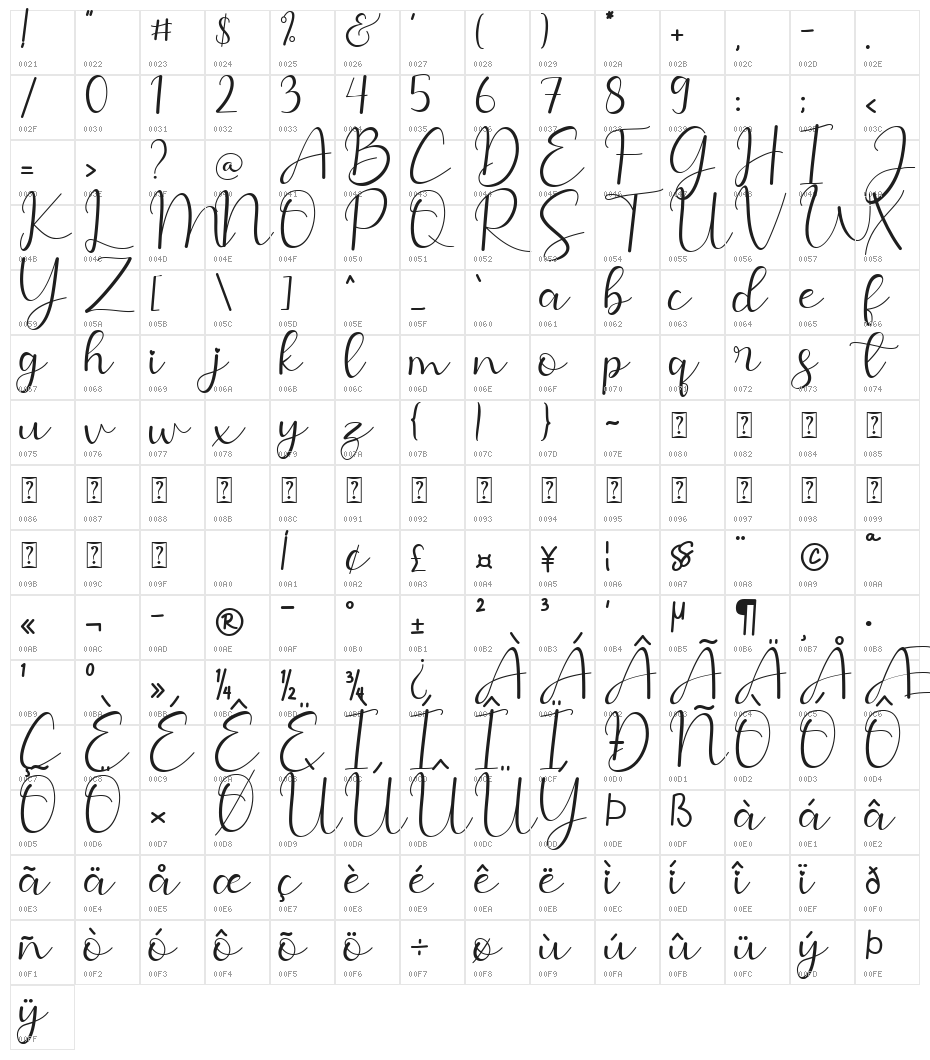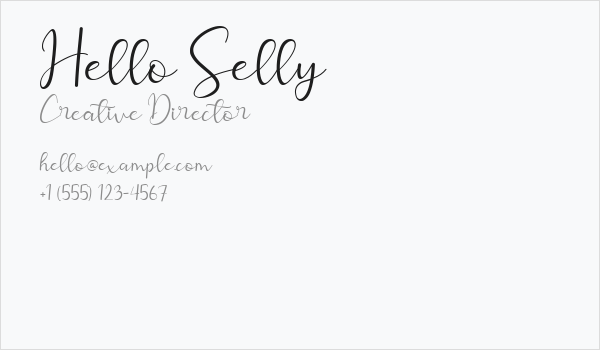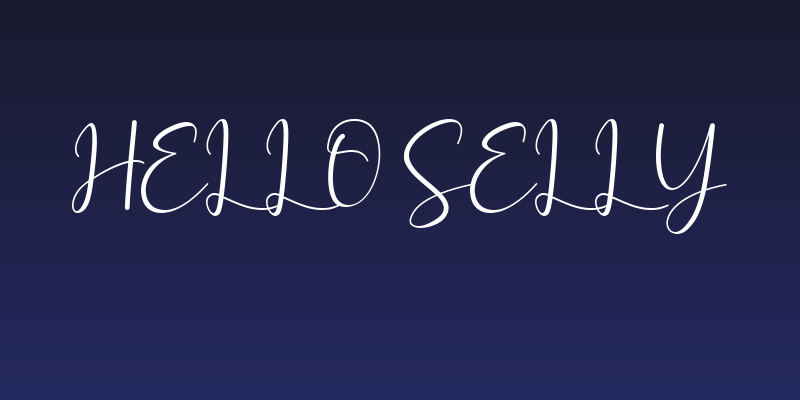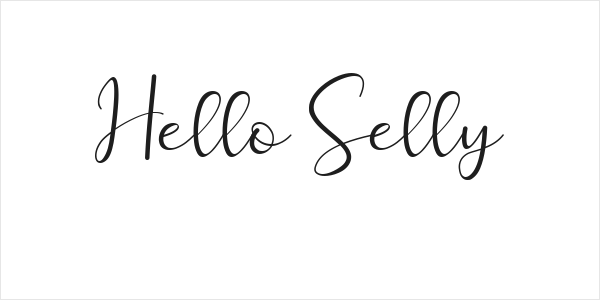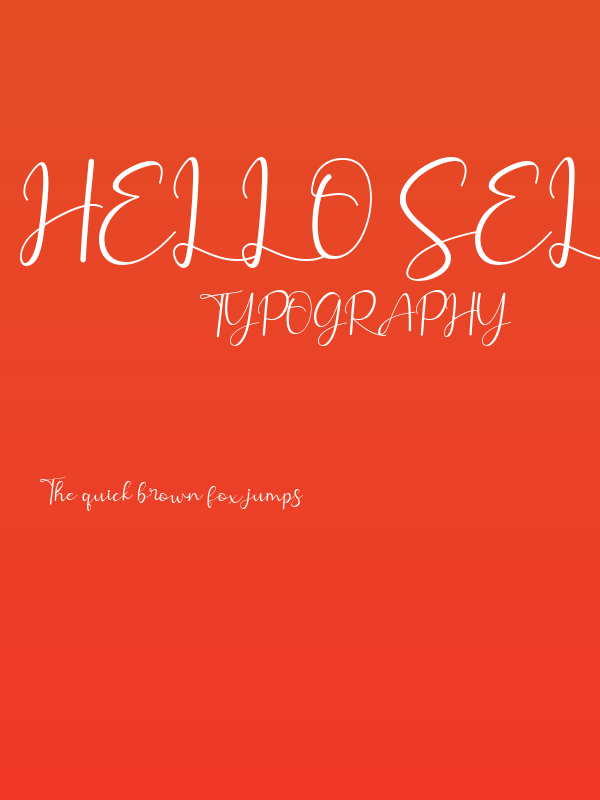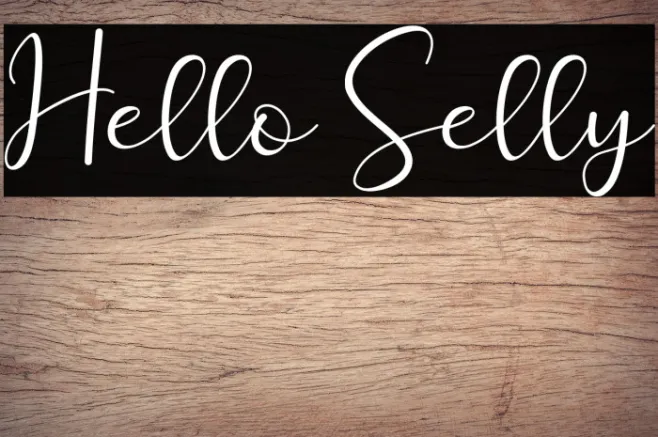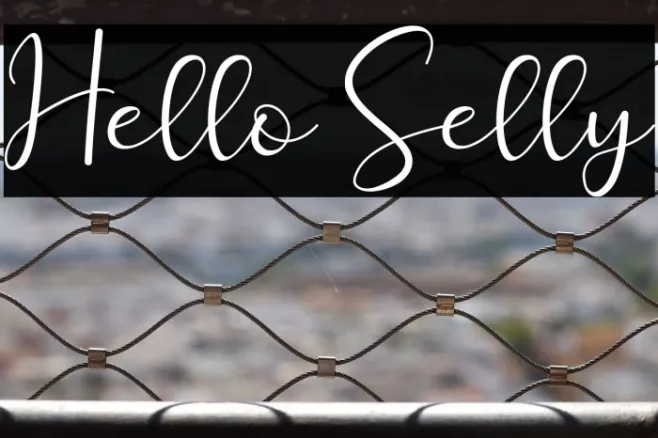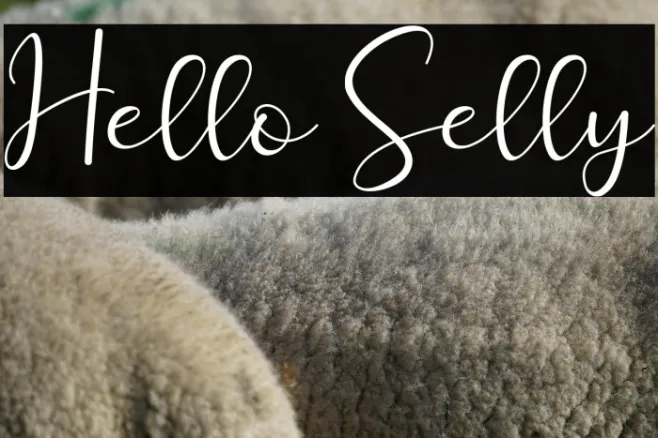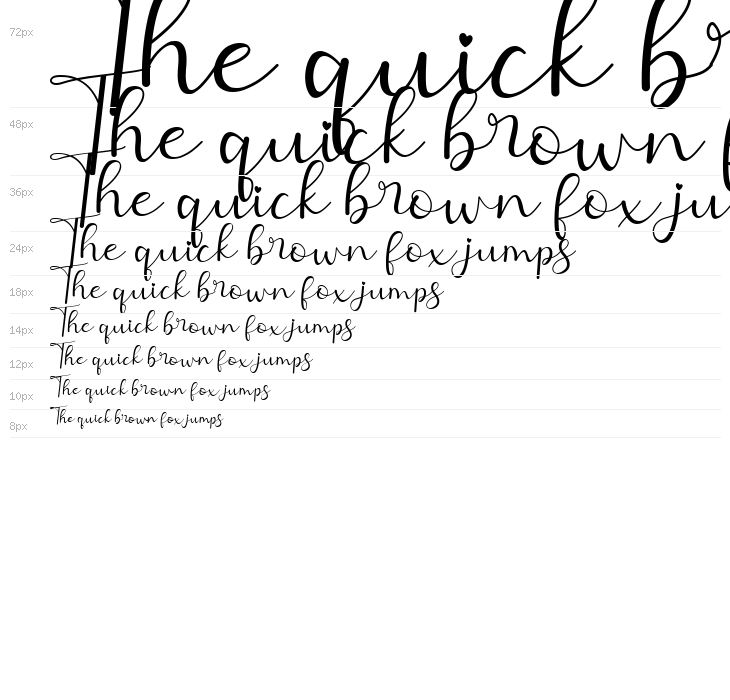
Hello Selly Font
Hello Selly Description
This font features a fluid and elegant script style, characterized by its smooth, flowing lines and cursive letterforms. The uppercase letters are tall and graceful, with subtle flourishes that add a touch of sophistication. The lowercase letters maintain a consistent rhythm, enhancing readability while preserving the font's artistic flair. Numbers and special characters are crafted with the same attention to detail, ensuring a cohesive appearance across all text elements. The overall design exudes a sense of elegance and charm, making it suitable for a variety of creative applications.
| Proposed Projects | Ideal for wedding invitations, greeting cards, branding projects, and elegant packaging designs. |